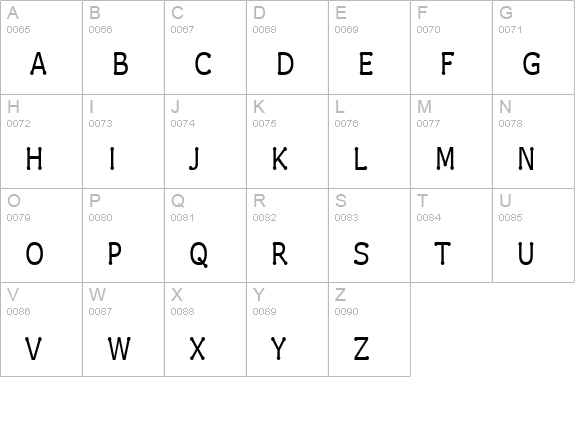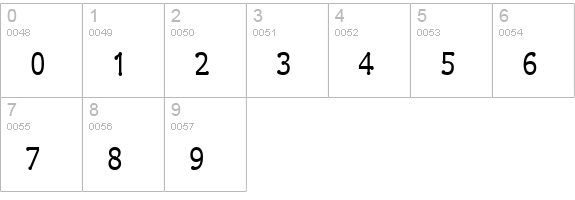
Drummon Narrow Font Details
Drummon Narrow is a distinctive, condensed-width variant in the Drummon typeface family \xE2\x80\x94 well suited to design and typography projects.
Drummon Narrow font is a sleek and modern typeface that exudes sophistication and style. With its clean lines and balanced proportions, this font is perfect for creating professional and polished designs. The narrow width of the characters adds a touch of elegance, making Drummon Narrow ideal for a wide range of projects, from branding and advertising to editorial and web design. The best part? Drummon Narrow font is available for free download at FontsMarket.com. Whether you're working on a personal project or a client's design, you can easily access this versatile font without breaking the bank. Don't miss out on the opportunity to elevate your designs with Drummon Narrow - download it today and see the difference it can make!